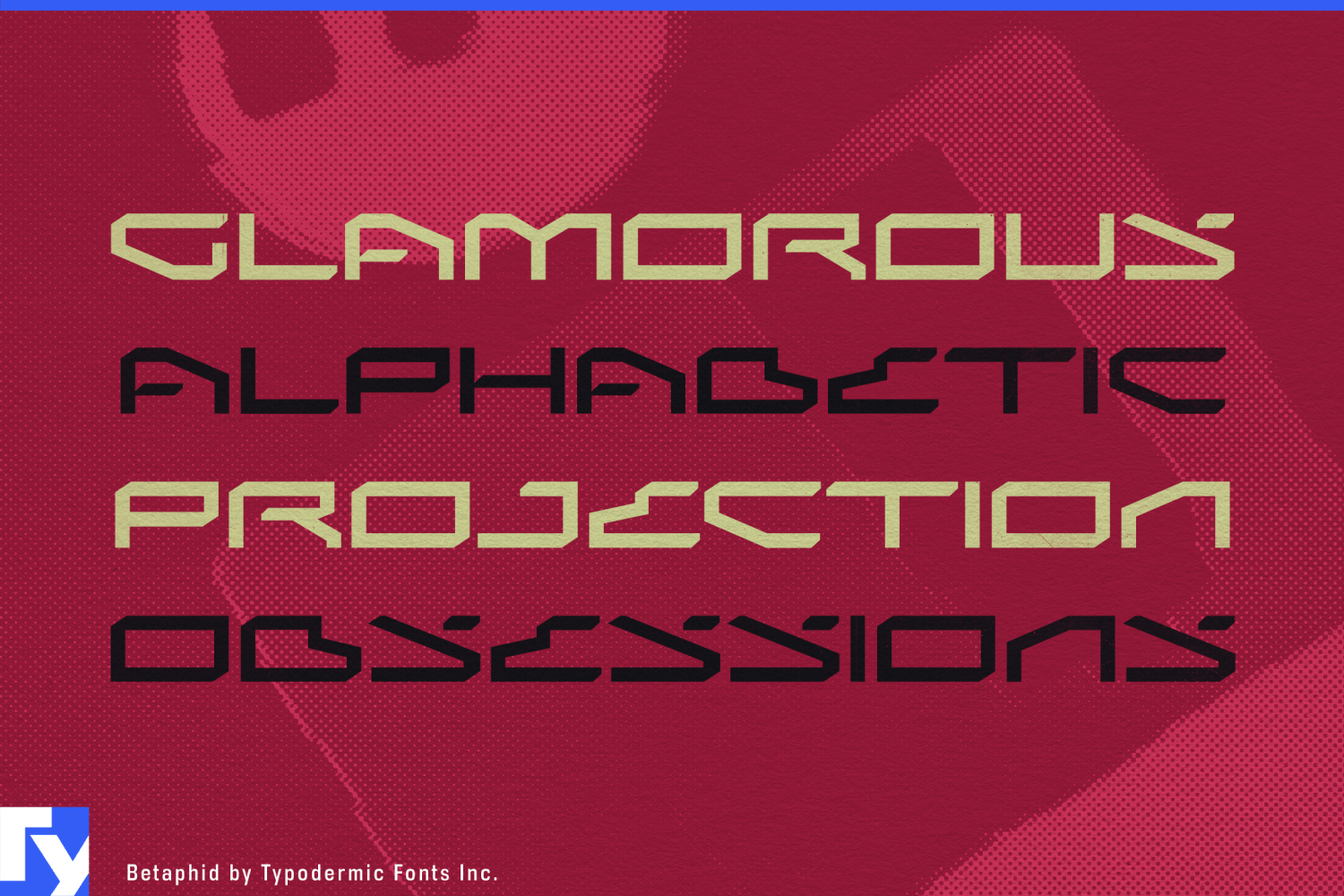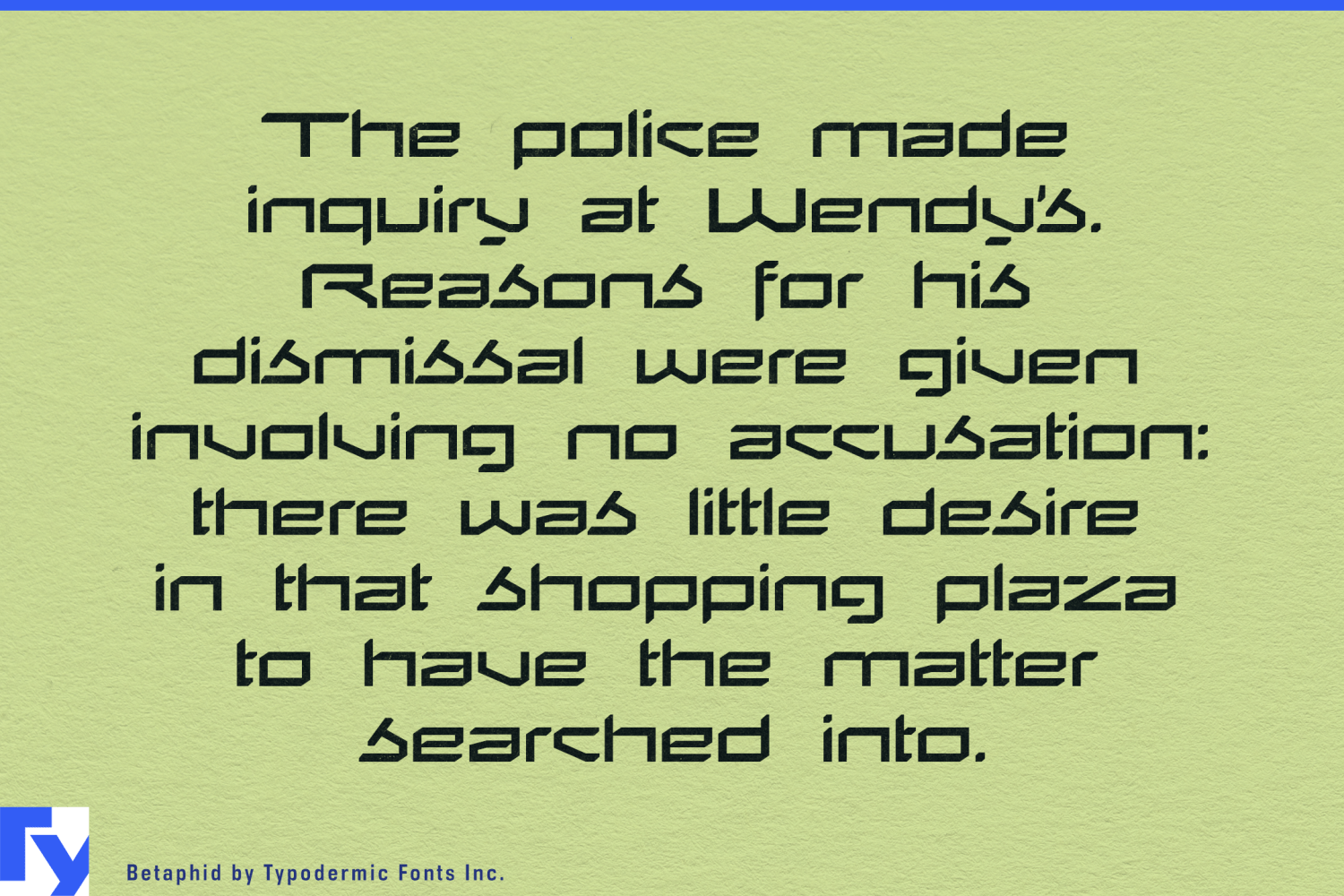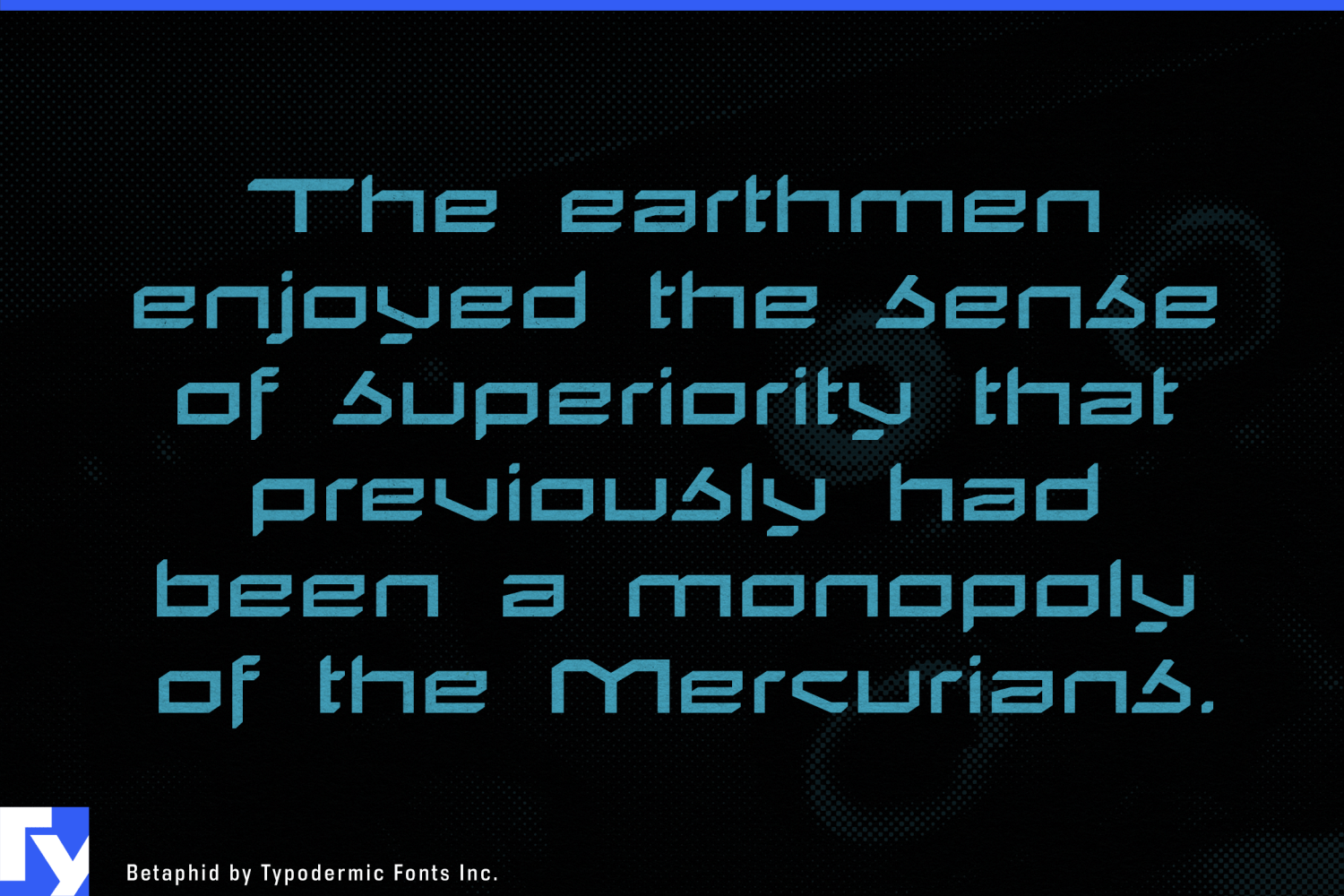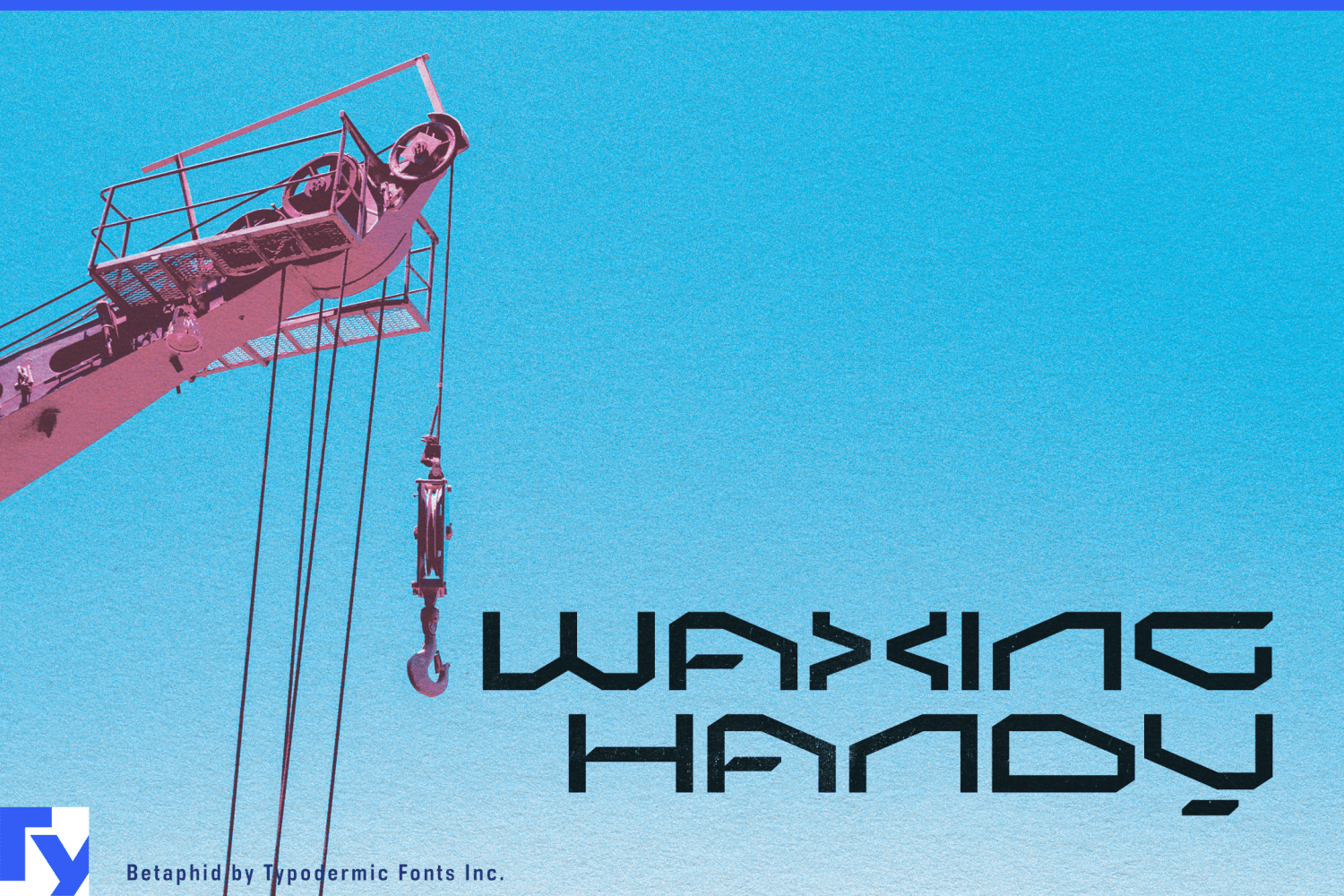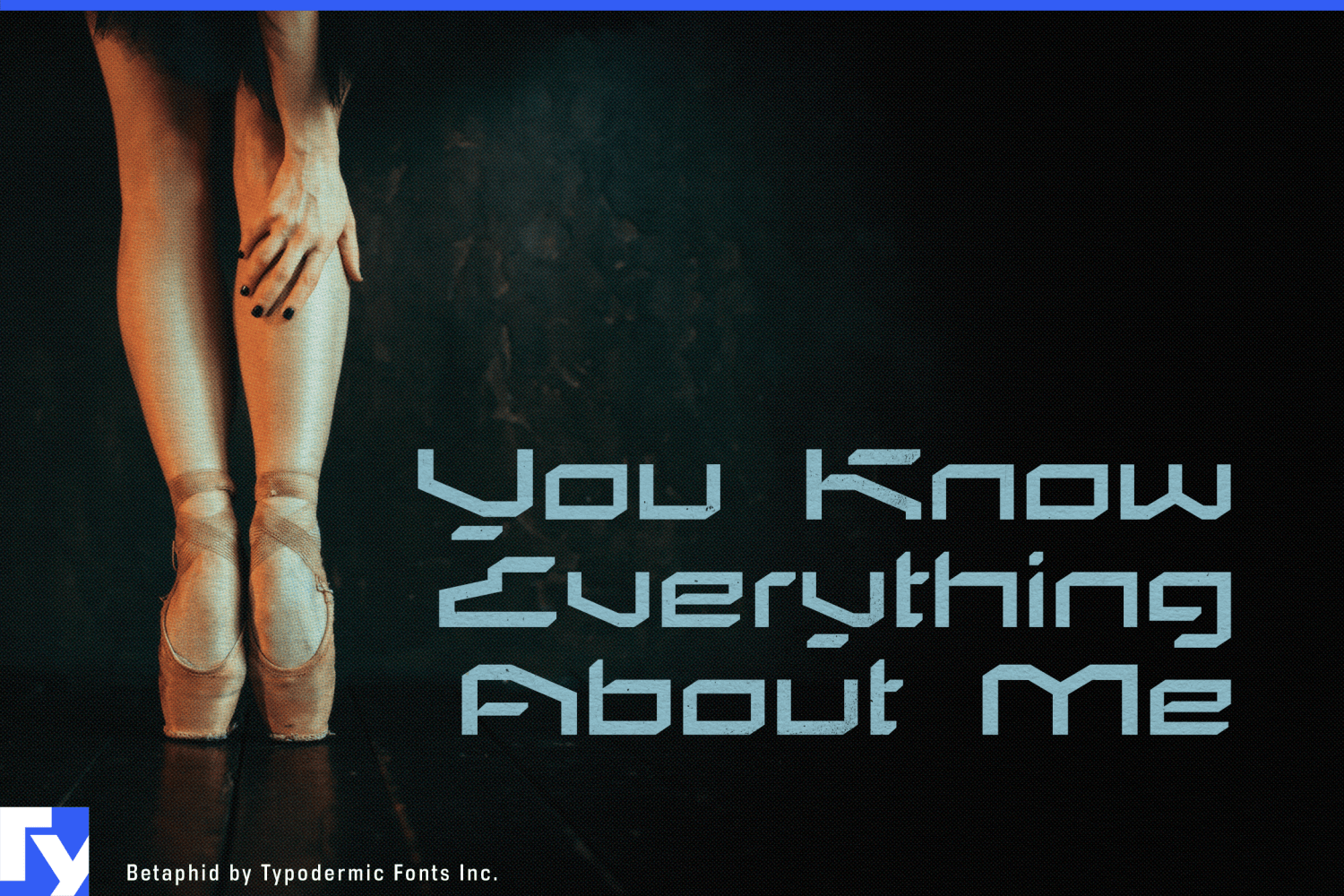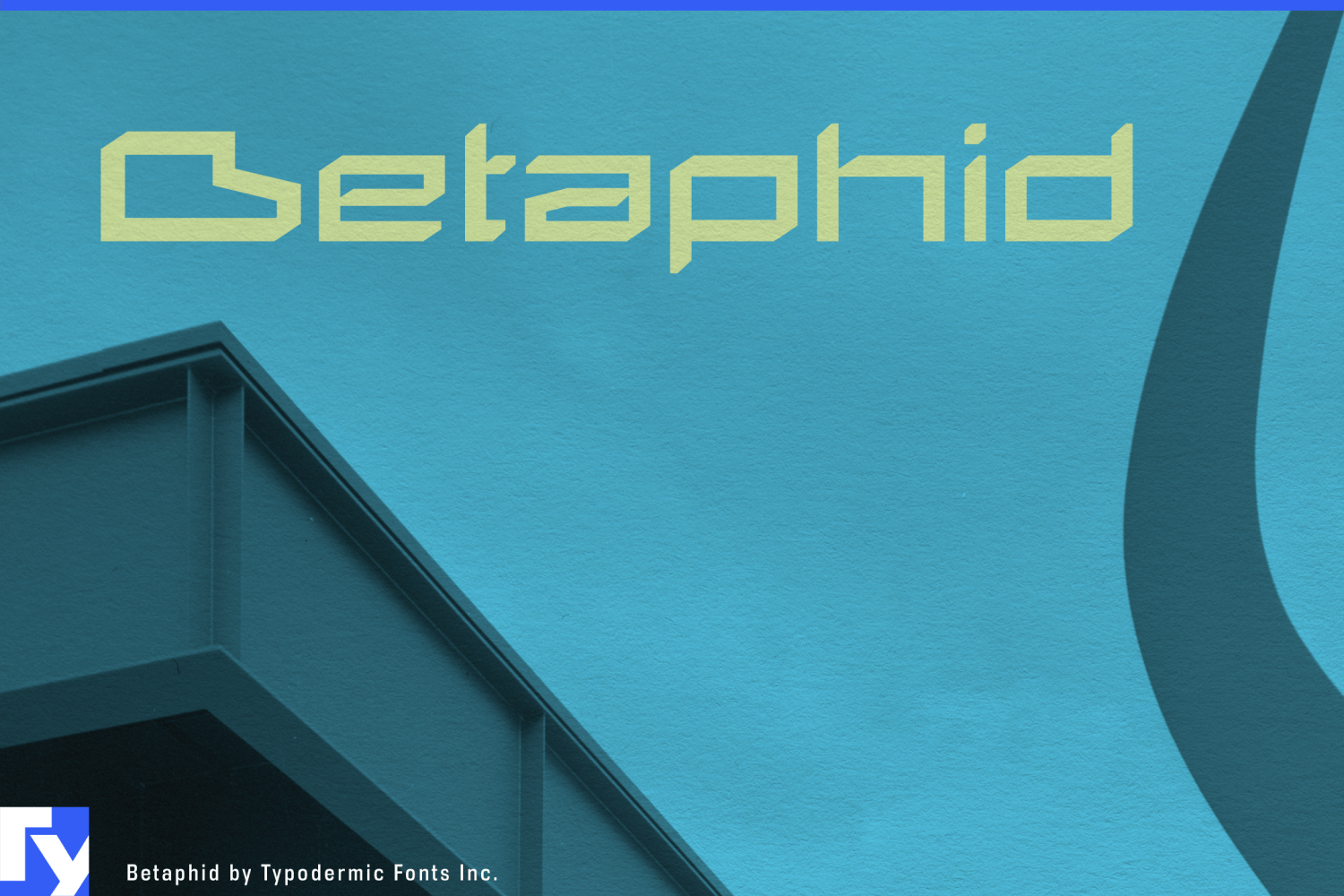
Introducing Betaphid, a sleek display typeface that marries scientific precision with brutalist boldness. Inspired by the uncompromising lines of modern architecture, Betaphid strips typography to its essence, creating characters that are as functional…